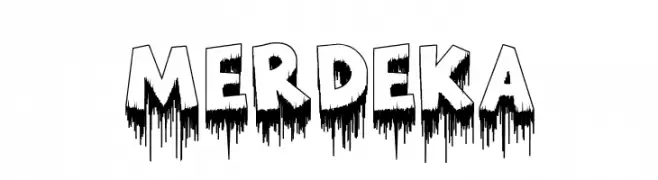
A bold, distressed font with a grunge and rebellious style.
A bold, dripping decorative font with a rebellious and edgy style.
A bold, jagged font with an energetic and rebellious style.
A bold, brush-style font with an energetic and rebellious vibe.
A bold, distressed font with a rugged, grunge-like appearance.
A dynamic, edgy font with sharp angles and high contrast, ideal for bold statements.
A distressed, jagged font with a chaotic and rebellious style.